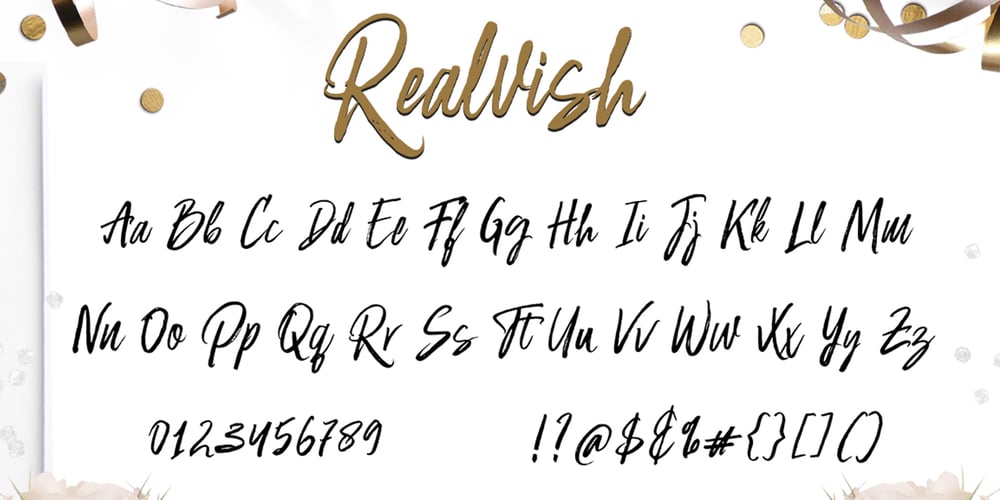
Realvish Font Family was designed by Akmal Yusar and published by Picatype. Realvish contains 1 styles and family package options. Realvish is a handwritten brush font, a contemporary approach to design, handmade natural, suitable for use in title design such as clothing, invitations, book titles, stationery designs, quotes, branding, logos, greeting cards, T-shirts, packaging designs, posters, and more. Realvish has one normal, complete with uppercase and lowercase letters, as well as multi-language support, numbers, punctuation. Thanks very much for finding and let me know if you have any questions.